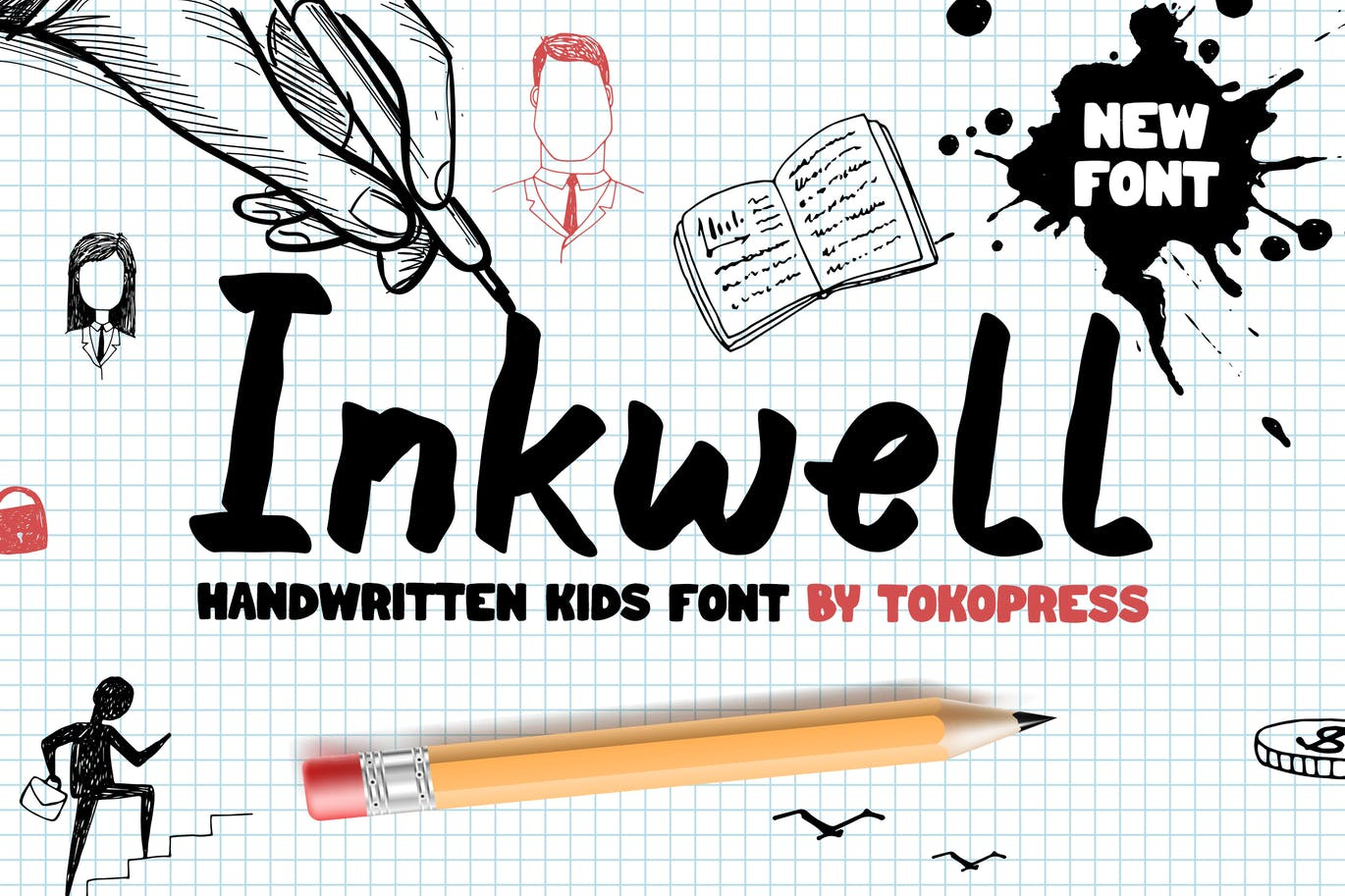
Inkwell - Handwriting Kids font
Inkwell - handwriting kids font
Light-hearted sans serif font that matches perfectly with any kids book and children related business purpose.
Suit perfectly for children book and business segmented magazines, posters, movie titles, music posters, youtube covers, youtube thumbnails, social media page covers and so on...